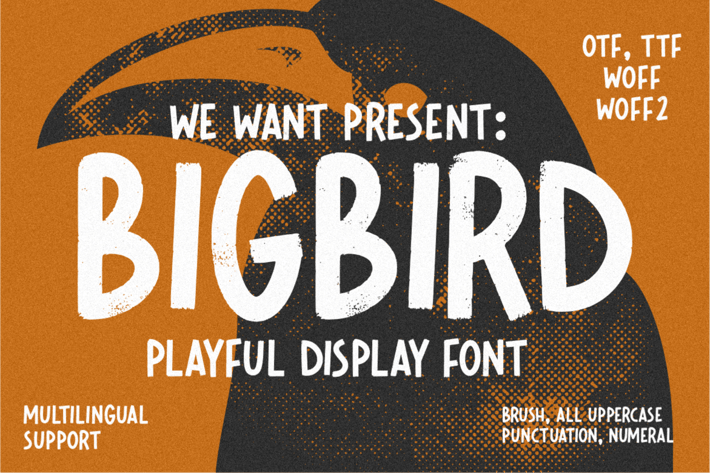
Bigbird Playful Display Font
introducing Bigbird font, a brush-style font craft that is carefully crafted for each character, this font is playful, cheerful, happy, suitable for branding designs related to children such as logos, label designs, packaging designs or others.